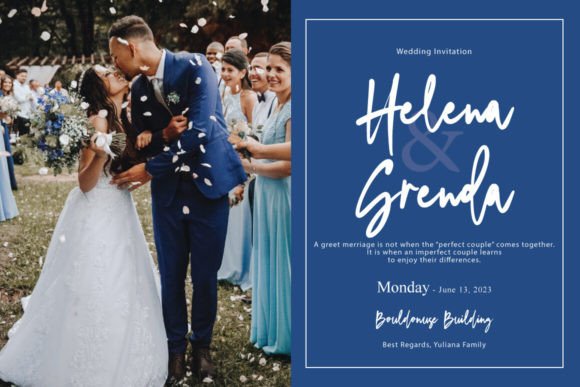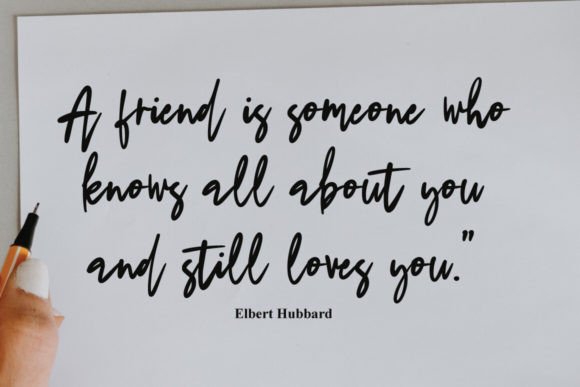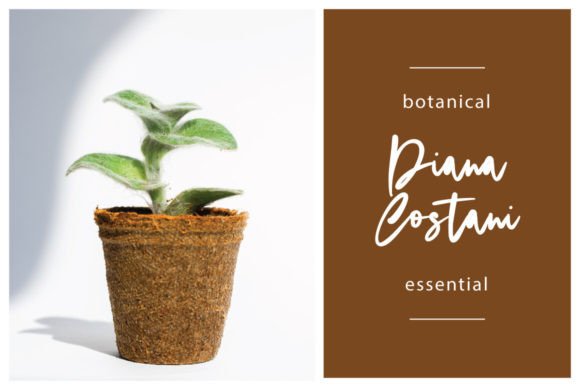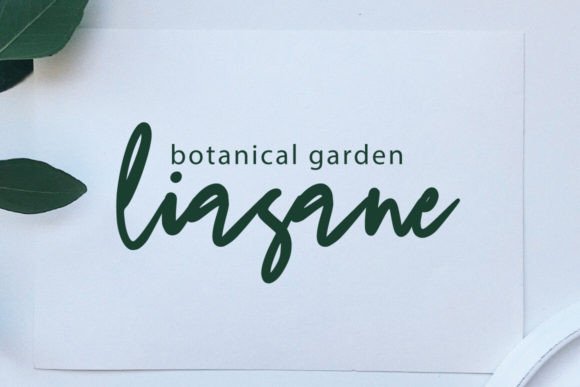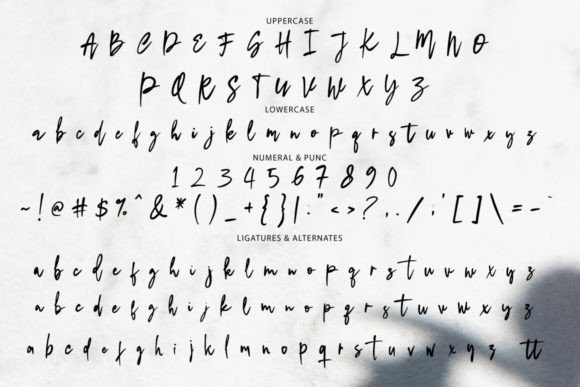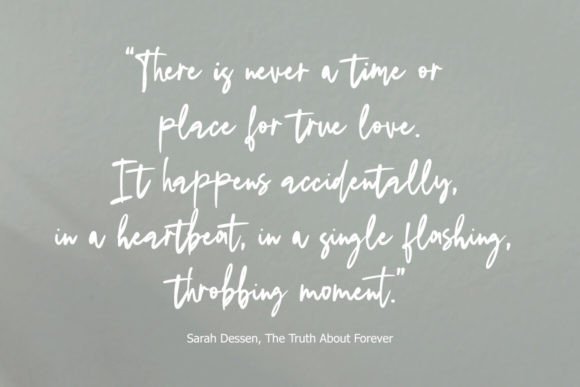
Dream Dolphin Font: A Beautiful Handmade Signature Style Font for Your Creative Projects
Are you a designer or crafter looking for a unique and elegant font to add a personal touch to your creations? Look no further than the Dream Dolphin Font! This stunning handmade signature style font is perfect for a variety of projects, from invitation cards and greeting cards to branding materials, business cards, quotes, posters, and more.
What Makes Dream Dolphin Font So Special?
Dream Dolphin Font is a one-of-a-kind font that boasts decorative characters and a dancing baseline, giving it a playful and whimsical feel. Its handmade signature style makes it perfect for adding a personal touch to your designs, while its versatility ensures that it can be used for a wide range of projects.
Perfect for Invitations and Greeting Cards
Whether you’re designing invitations for a special occasion or creating greeting cards for loved ones, Dream Dolphin Font is the perfect choice. Its elegant and sophisticated style ensures that your designs will stand out from the crowd, while its playful and whimsical feel adds a touch of personality.
Imagine creating beautiful wedding invitations, birthday cards, or holiday greetings with Dream Dolphin Font. The font’s decorative characters and dancing baseline will add a touch of magic to your designs, making them truly unforgettable.
Ideal for Branding Materials and Business Cards
Dream Dolphin Font is also perfect for branding materials and business cards. Its unique and elegant style ensures that your brand will stand out from the competition, while its handmade signature style adds a personal touch.
Whether you’re designing a logo, brochure, or business card, Dream Dolphin Font is a great choice. Its versatility ensures that it can be used for a wide range of projects, from formal and professional designs to more playful and creative ones.
Great for Quotes and Posters
Dream Dolphin Font is also ideal for quotes and posters. Its decorative characters and dancing baseline make it perfect for creating eye-catching and inspiring designs that will grab attention.
Imagine creating beautiful quote posters, social media graphics, or inspirational prints with Dream Dolphin Font. The font’s elegant and sophisticated style ensures that your designs will be taken seriously, while its playful and whimsical feel adds a touch of personality.
Why Choose Dream Dolphin Font?
So why choose Dream Dolphin Font for your creative projects? Here are just a few reasons:
- Unique and elegant style: Dream Dolphin Font boasts a one-of-a-kind handmade signature style that will add a personal touch to your designs.
- Versatility: The font is perfect for a wide range of projects, from invitations and greeting cards to branding materials, business cards, quotes, posters, and more.
- Decorative characters and dancing baseline: The font’s decorative characters and dancing baseline give it a playful and whimsical feel that’s sure to grab attention.
- Elegant and sophisticated: Dream Dolphin Font is perfect for creating formal and professional designs that will impress.
In conclusion, Dream Dolphin Font is a beautiful handmade signature style font that’s perfect for designers and crafters looking to add a personal touch to their creative projects. Its unique and elegant style, versatility, and decorative characters and dancing baseline make it a great choice for a wide range of projects.